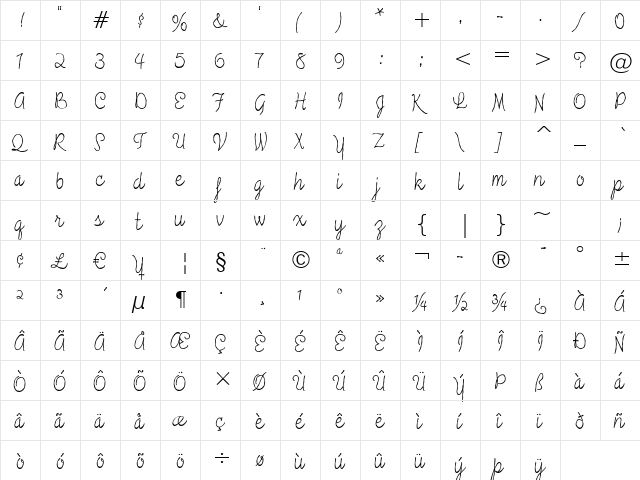
Tropicali Script BTN Rough Regular
Design Context for Tropicali Script BTN Rough Typeface
Tropicali Script BTN Rough embraces imperfection — its rough, textured character adds raw authenticity to designs that want to feel lived-in and unconventional.
A strong fit for alternative music projects, graffiti-adjacent design, and anything that deliberately resists polish.
Pro Tip: Use Tropicali Script BTN Rough at larger sizes where the texture and irregularity of each letterform can be clearly seen — it loses its character at small sizes.